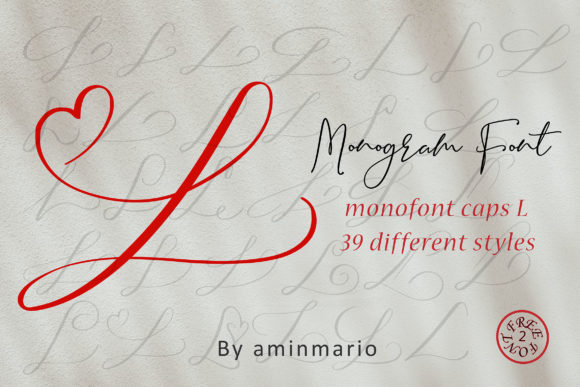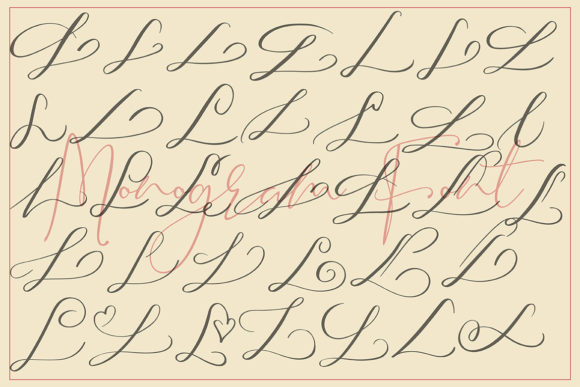
Monogram L | Monofont Caps L Font
This MONOGRAM is natural handwriting of capital L with 36 different styles.
This is not for writing words or sentences, but for monograms. Bonus 2 Font that contains the uppercase and lowercase to support it.